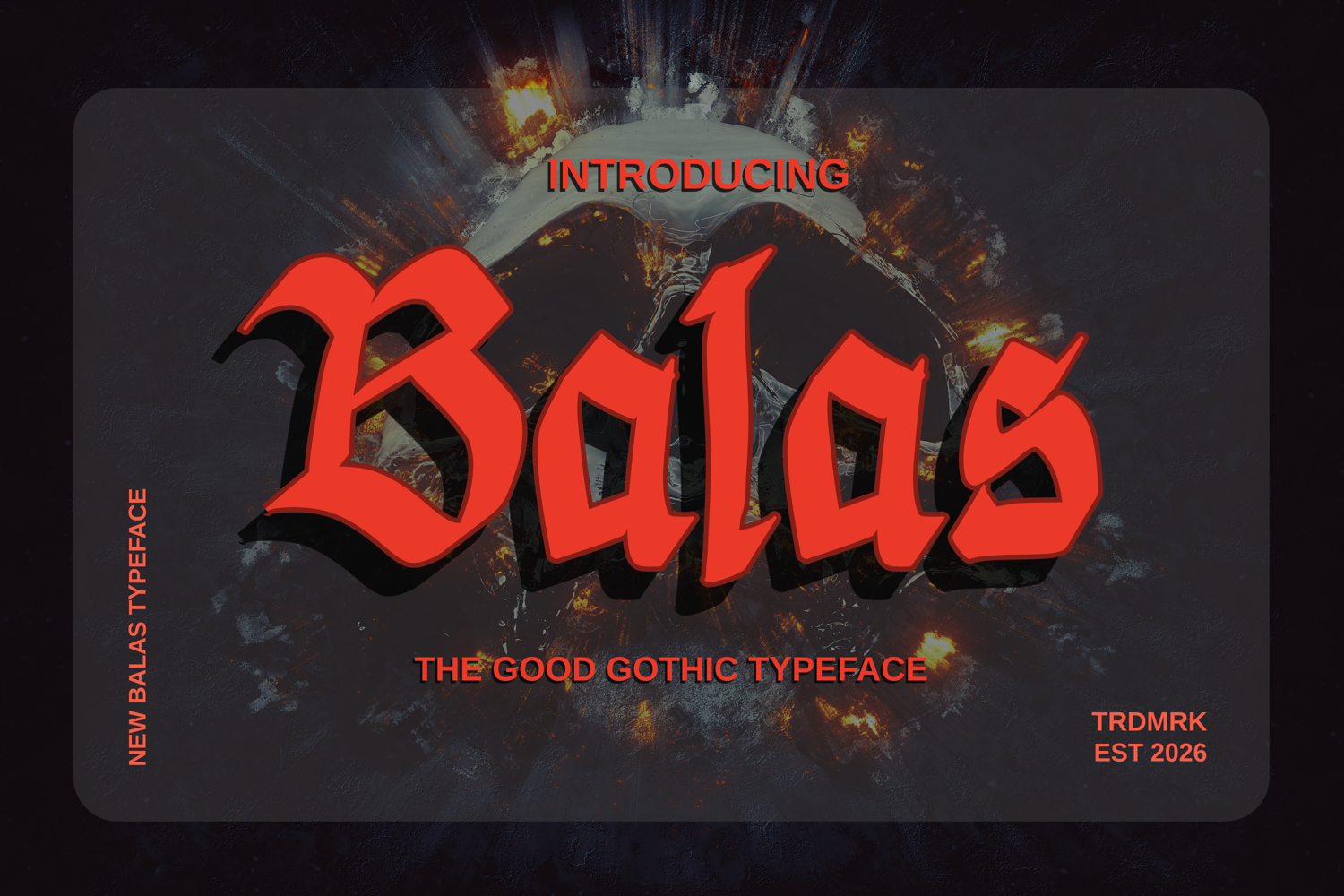
Balas - Bold Gothic Blackletter Display Font
Balas
Balas is a bold gothic blackletter typeface that perfectly balances traditional medieval letterforms with modern readability. Designed with sharp, powerful strokes, it delivers an edgy and commanding presence to any creative project.
Whether you are crafting a standout streetwear apparel design, striking band merchandise, unique tattoo studio branding, or fierce gaming logos, Balas provides the perfect aesthetic to make your work unforgettable.
Perfect For:
• Streetwear & Urban Apparel
• Band Merchandise & Album Covers
• Tattoo Studios & Badges
• Gaming Logos & Esports Branding
• Poster Designs, Labels, and Flyers with a powerful, edgy vibe